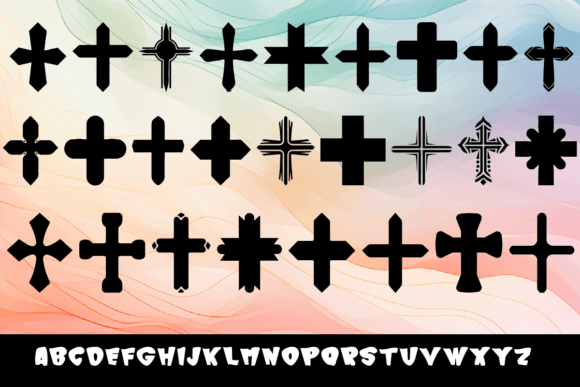
Introduction to Lucky Cross Font
Do you remember the thrill of creating something entirely new and unique? The rush of excitement as you bring your creative vision to life? For designers, those moments are what make it all worthwhile. Whether you’re working on a branding project, crafting a digital illustration, or building a website, the right design resources can make all the difference. And that’s exactly why we’re excited to introduce you to the Lucky Cross Font – a game-changing addition to your design toolkit.
This stunning font is more than just a digital product – it’s a key to unlocking the perfect balance of style and sophistication in your creative projects. With 26 distinctive cross symbols to choose from, you’ll be spoiled for choice when it comes to adding a touch of elegance to your designs. And with its transparent background, you can seamlessly integrate it into any project, no matter the complexity.
Key Features of Lucky Cross Font
- High-quality design resource suitable for various creative projects
- Unique, modern design makes it an excellent choice for designers looking for a fresh and creative look
Honest Review: Lucky Cross Font
I recently stumbled upon the Lucky Cross Font, and I’m excited to share my thoughts on this design resource. As a designer, I appreciate high-quality fonts that can elevate my creative projects. The Lucky Cross Font definitely delivers.
- Unique and stylish design that’s perfect for modern projects
- High quality, crisp lines that ensure readability
- Transparent background, making it easy to layer over images
One thing to note is that the font might not be suitable for all projects. For example, its bold and playful nature may not be the best fit for more formal or traditional designs.
- May not be suitable for formal or traditional designs
- Limited font weights and styles (although this is expected for a free download)
Overall, I’m impressed with the Lucky Cross Font. It’s a great addition to any designer’s toolkit, especially for creative projects that require a modern and stylish touch.
High Quality Design Resource
The Lucky Cross Font is a high-quality design resource that can elevate your creative project to the next level. With its unique and stylish design, you can create eye-catching graphics, logos, and other visual elements that will stand out in any design.
The Lucky Cross Font is perfect for designing logos, business cards, brochures, and other marketing materials. It’s also great for creating social media graphics, posters, and other visual elements that require a unique and stylish design.